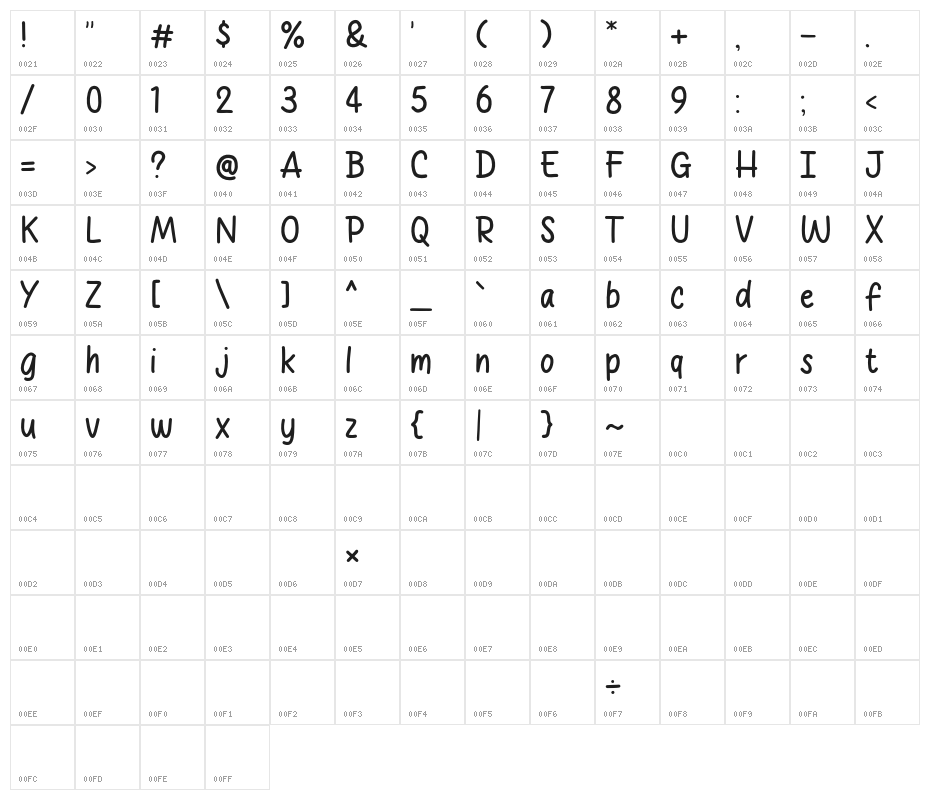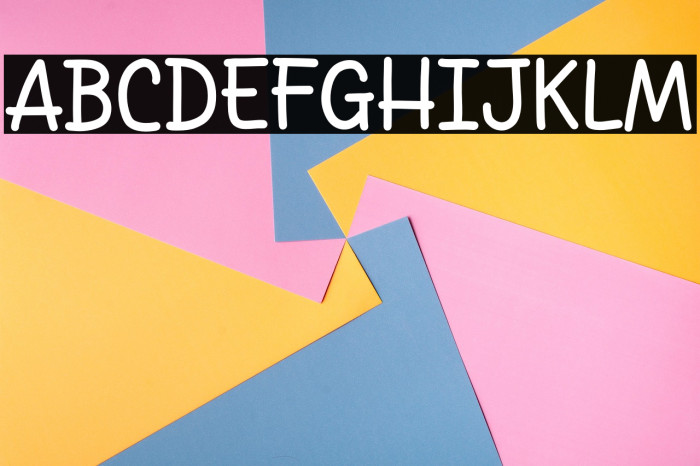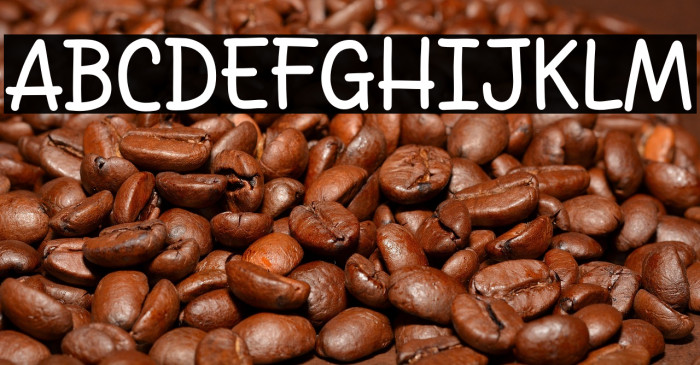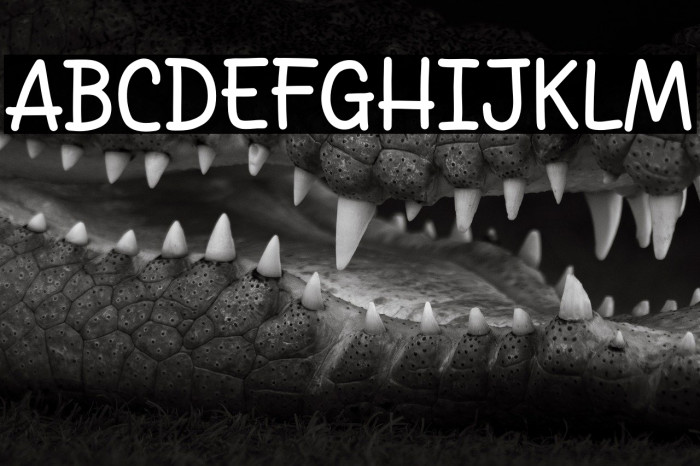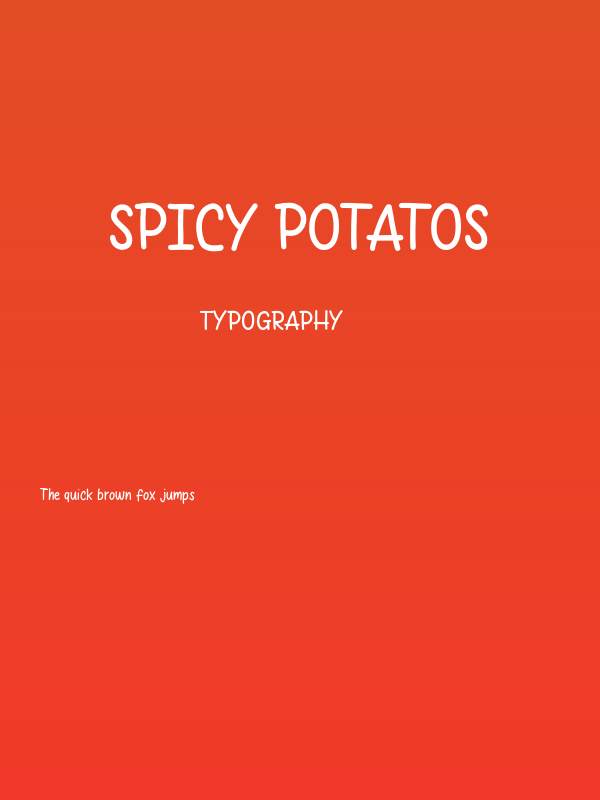
Spicy Potatos Font
Spicy Potatos Description
This playful and casual font features a handwritten style with rounded edges and a friendly appearance. The letters are slightly irregular, giving it a natural and organic feel, reminiscent of casual handwriting. The strokes are consistent in weight, providing a uniform look across all characters. The numbers and special characters maintain the same playful style, making it suitable for informal and creative projects. Its legibility and charm make it ideal for designs that aim to convey warmth and approachability.
| Proposed Projects | Ideal for greeting cards, children's books, playful branding, and casual invitations. |